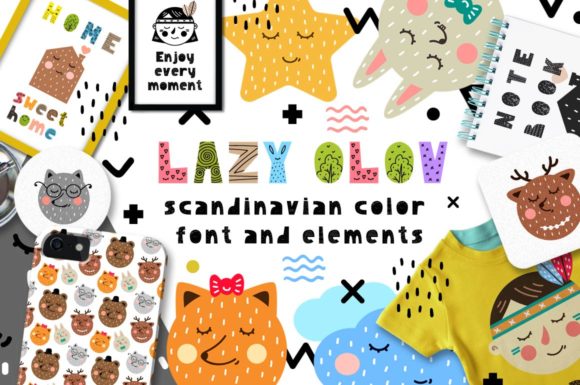
Journey into the world of Lazy Olov Font, a color font of unparalleled charm and allure, born from the creative mind of Juliya Kochkanyan. Inspired by the vibrant spirit of Scandinavian design, Lazy Olov is an artistic masterpiece that brings a playful and unique touch to every project it graces.
With Lazy Olov, transform your designs into captivating expressions of joy and whimsy. This colorful font possesses an infectious personality that breathes life into your creations. It's a symphony of hues, a visual masterpiece that dances across the screen, captivating the hearts and minds of your audience.
Step into a world of endless possibilities, where Lazy Olov's vibrant palette becomes your canvas for creativity. Experiment with a kaleidoscope of colors, seamlessly blending shades and tones to suit your unique vision. From playful and cheerful to elegant and sophisticated, Lazy Olov adapts effortlessly to your design aesthetic.
Unlock the door to a world of creative possibilities with Lazy Olov. Let your imagination run wild as you craft stunning logos, eye-catching social media graphics, vibrant posters, and captivating website designs. This font is a versatile chameleon, seamlessly blending into any project, adding a touch of magic and personality that sets your work apart.
Lazy Olov is more than just a font; it's an experience. Its vibrant colors and playful spirit ignite emotions, leaving a lasting impression on your audience. Prepare to be mesmerized as Lazy Olov's enchanting hues dance across the screen, evoking joy, wonder, and boundless creativity.